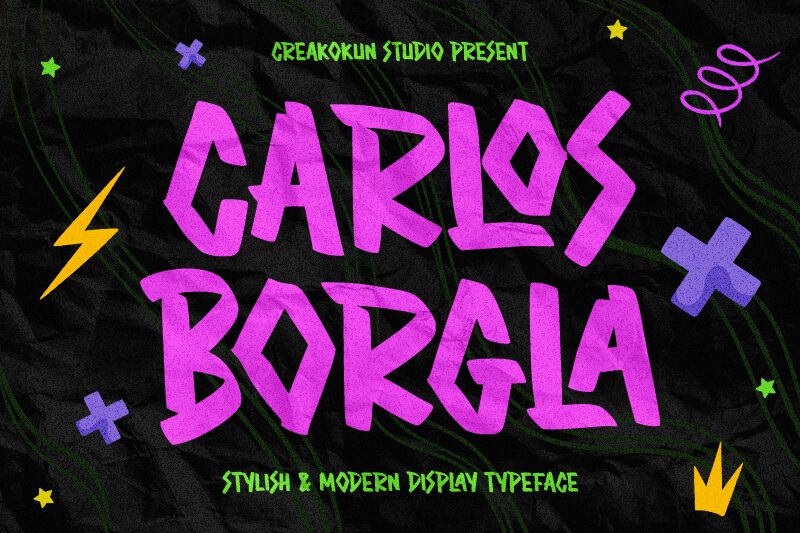
Carlos Borgla
Carlos Borgla is a stylish marker font designed by M Arif Dwi Prasetyo & Eko Nurcahyo. It's perfect for creating modern, eye-catching designs like logos, quotes, t-shirts or posters. Add flair to your next project with Carlos Borgla!